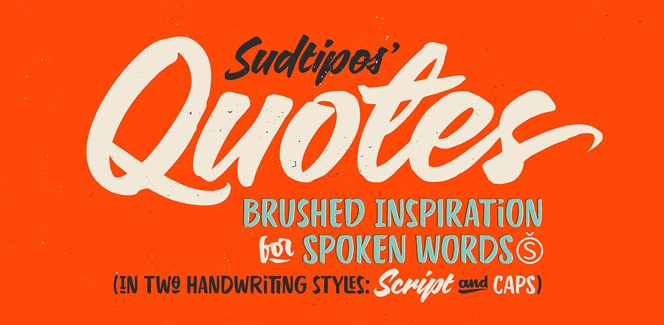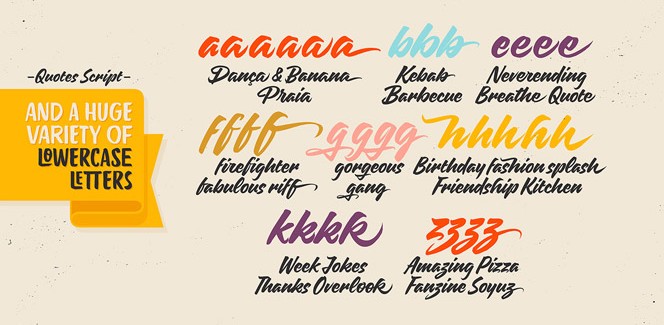
Quotes typeface
Quotes – the newest release of the famous Argentine Sudtipos type foundry is a very expressive and fashionable typeface that will leave nobody unimpressed. It is the second font family designed by the young and very talented designer Yani Arabena after the very fresh and elegant Abelina font that was published in 2014. Once again she works under the guidance of the very experienced Ale Paul and Guille Vizzari and again this leads to a magnificent result showing us how successful the combination between talent, passion and experience always is.
In fact, Quotes is a very interesting project. It reflects Yani Arabena’s fascination of the calligraphy with her “weapon” this time being the ever so popular pointed brush. She was inspired by the possibility to use the pointed brush in order to create a font that will help people to write down and exchange thoughts and messages in the form of quotes, hence the name. Of course, as the thoughts that are as good as to be quoted have to be special, so is the script that is used. And Quotes is really special indeed! It is as elegant and fancy, as it is casual and informal. Its letterforms will inspire many people to exchange messages and ideas, share happy moments and ultimately to enjoy the beauty of life.
Quotes font family comes in two styles in order to tend to as many needs as possible. There are the free flowing Quotes Script and the more formal Quotes Caps that are designed to be combined and to interact together in a formidable manner. However, they could be used separately to a great result, as Script with its large variety of alternate signs and ligatures will allow the users to be as spontaneous and expressive as they desire, whereas Caps – a beautifully drawn uppercase system, will draw anyone’s attention.
Designers: Yani Arabena, Guille Vizzari, Alejandro Paul
Publisher: Sudtipos